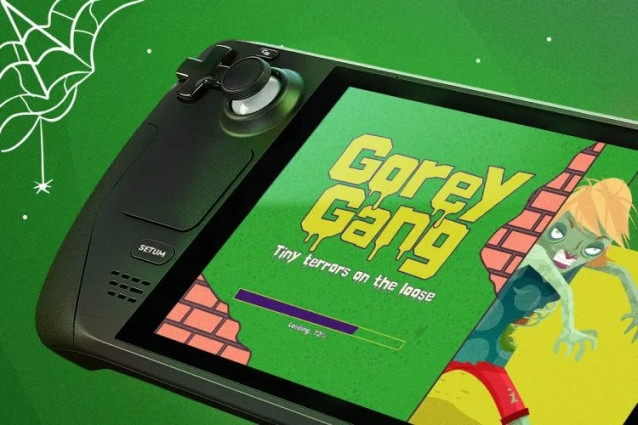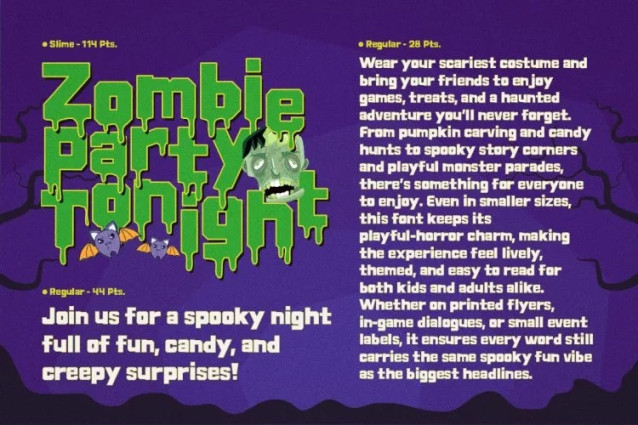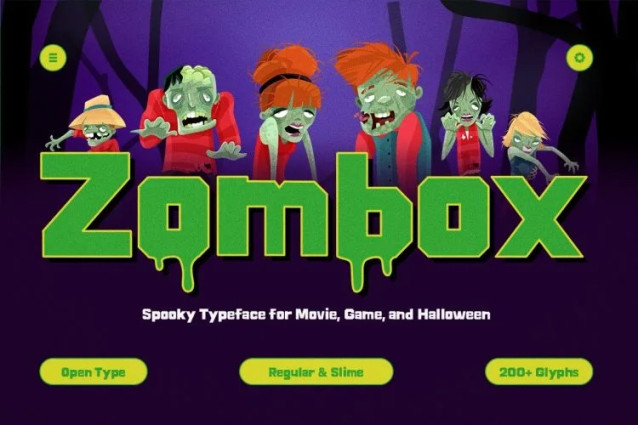
Zombox Display Font
Zombox Display Font is a spooky zombie-inspired display typeface built for designers who want to capture the raw, undead energy of horror. With its jagged, decayed letterforms and spine-chilling vibe, Zombox is perfect for projects that demand a terrifying yet bold presence.
Whether you’re working on a horror movie poster, zombie game UI, Halloween merch, haunted house branding, or eerie social media content, Zombox delivers the perfect mix of spooky, freaky, and cinematic.